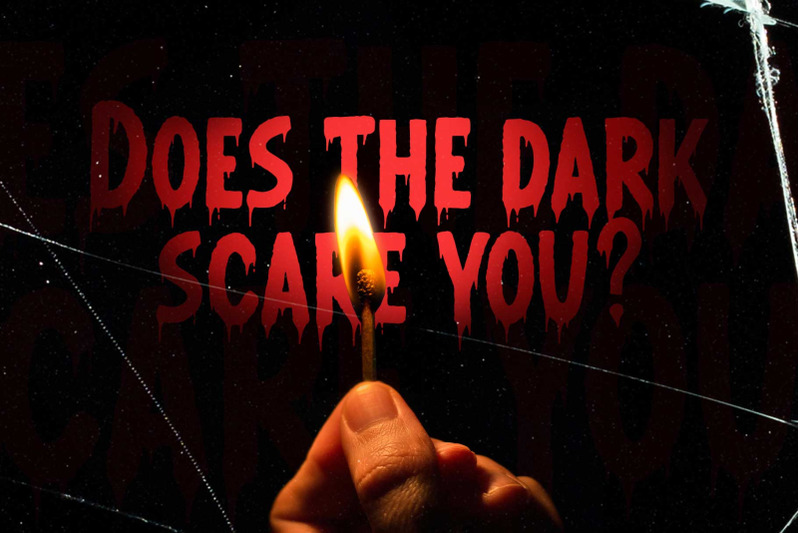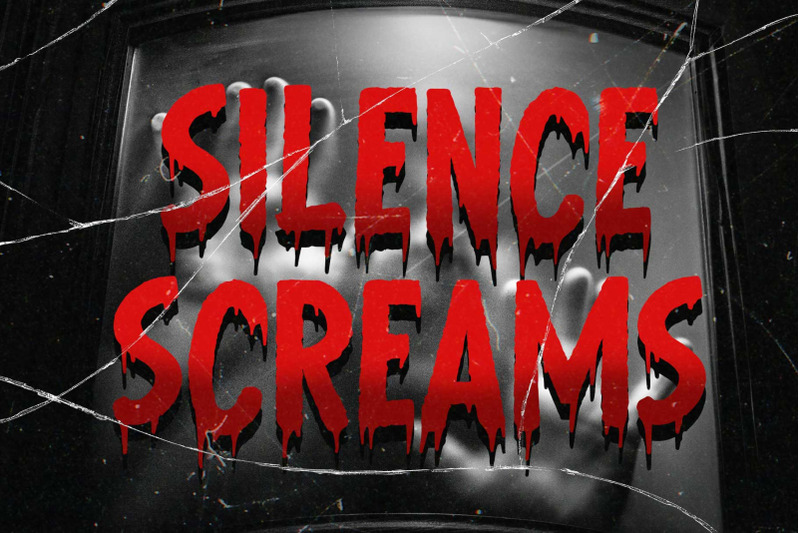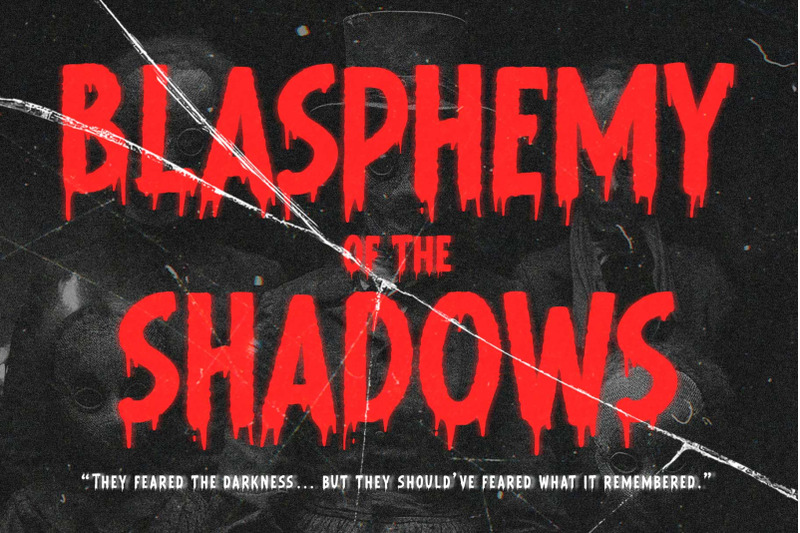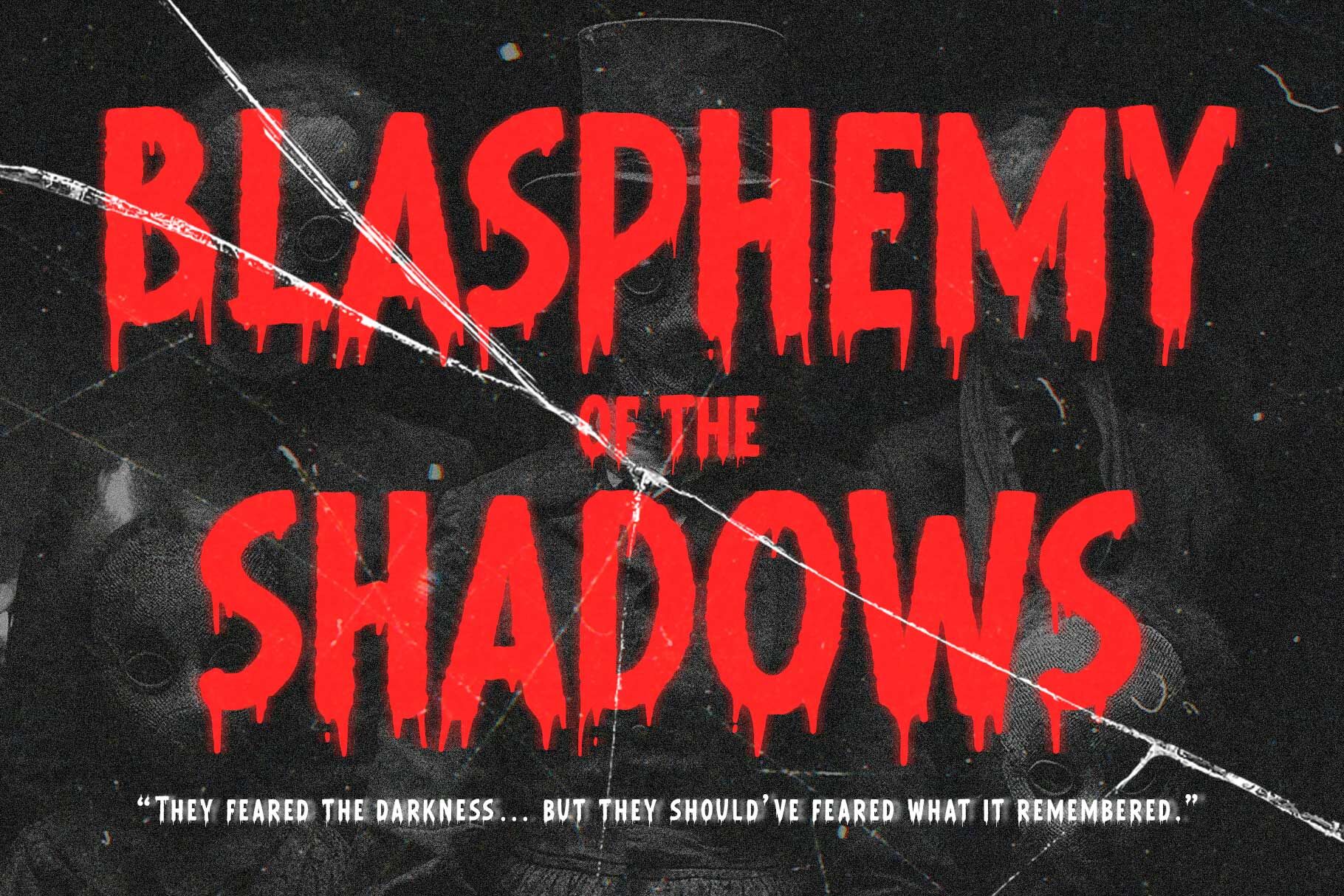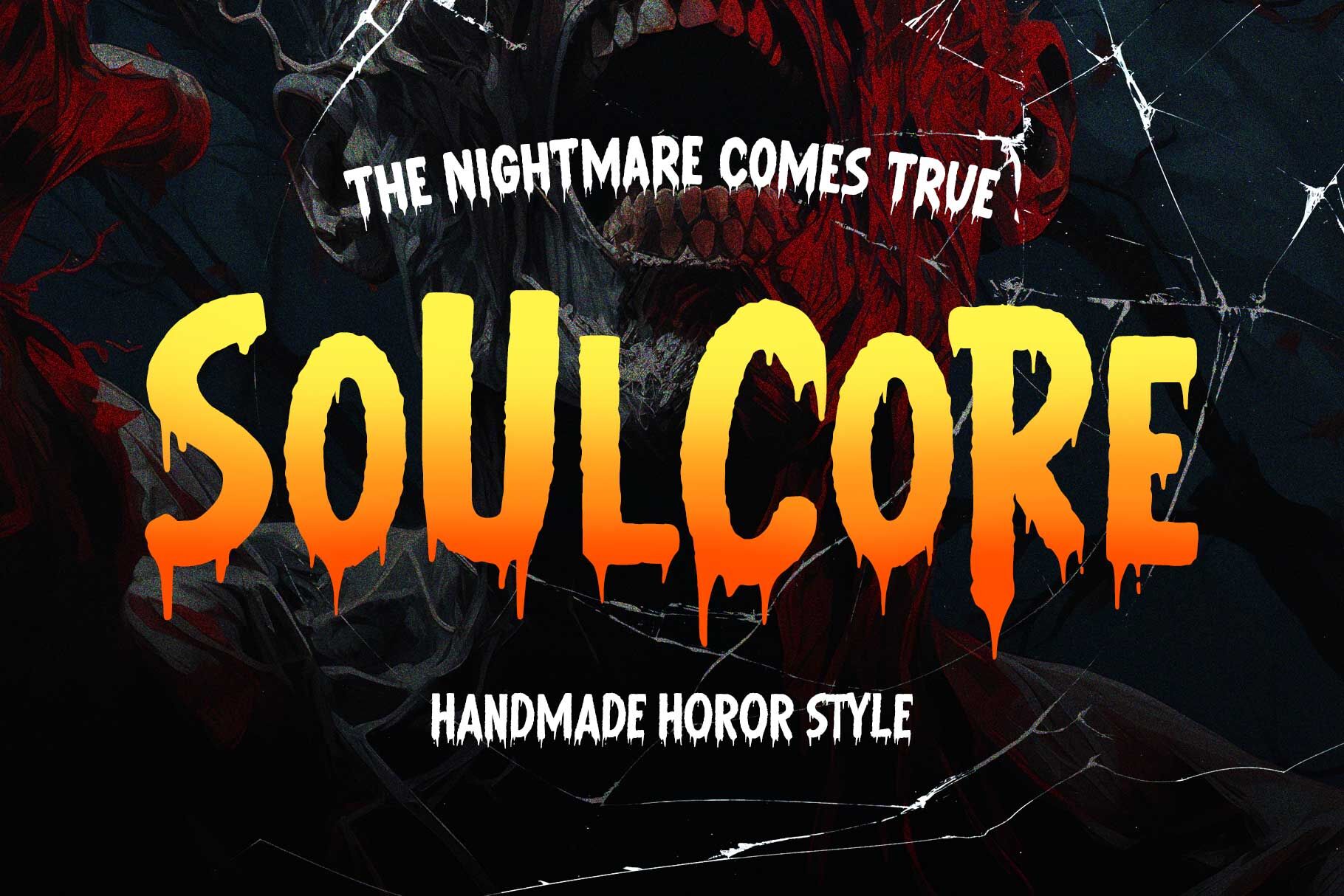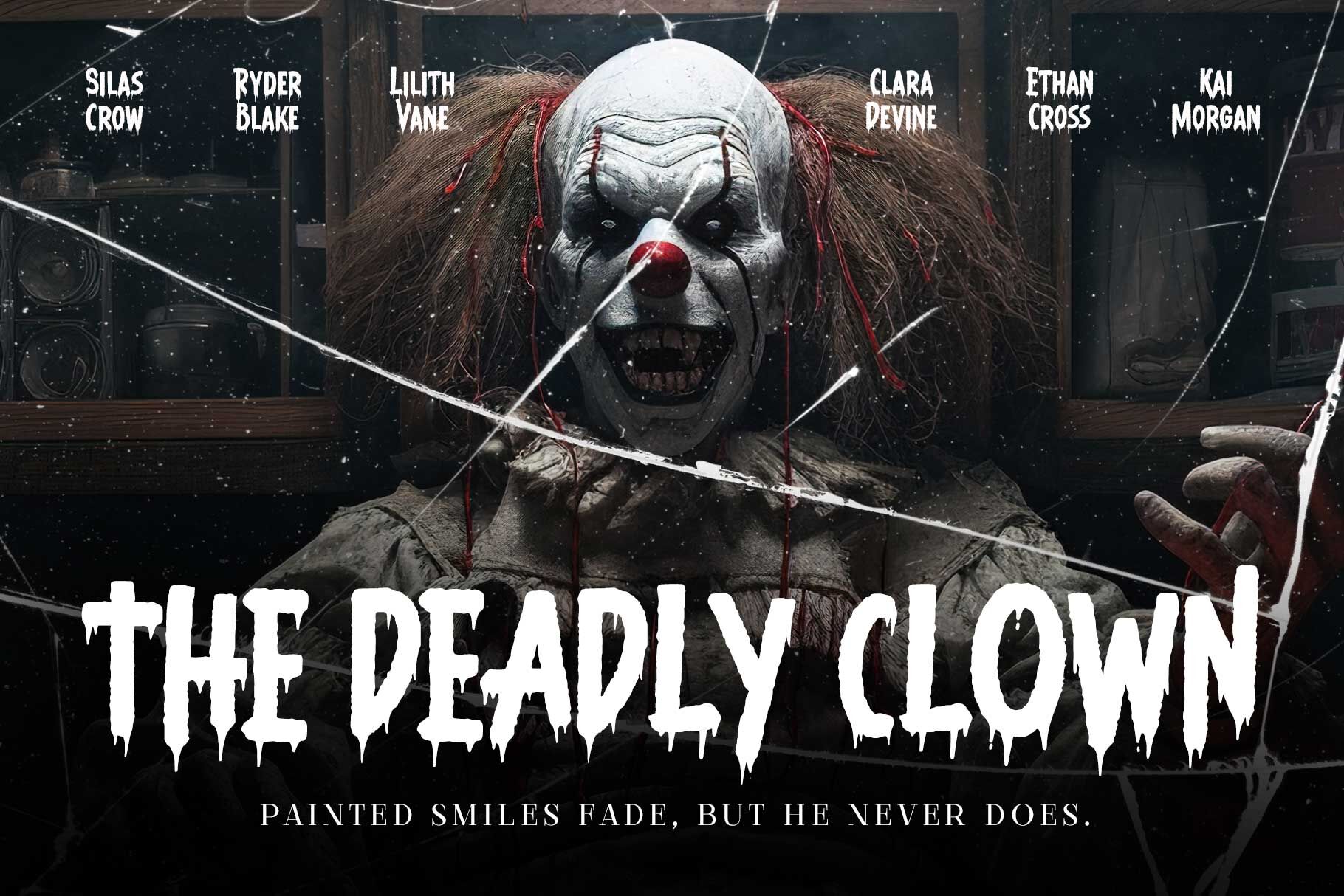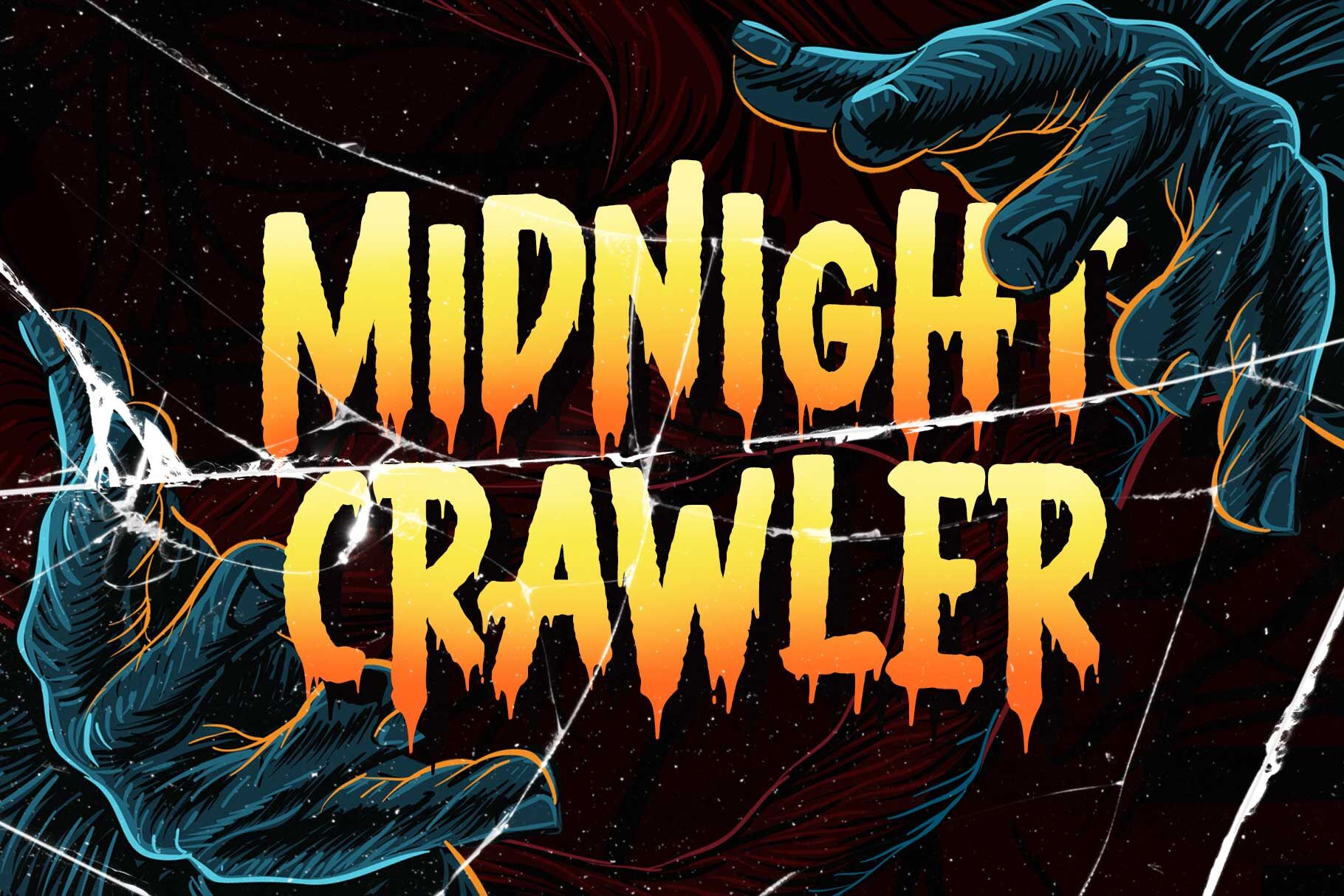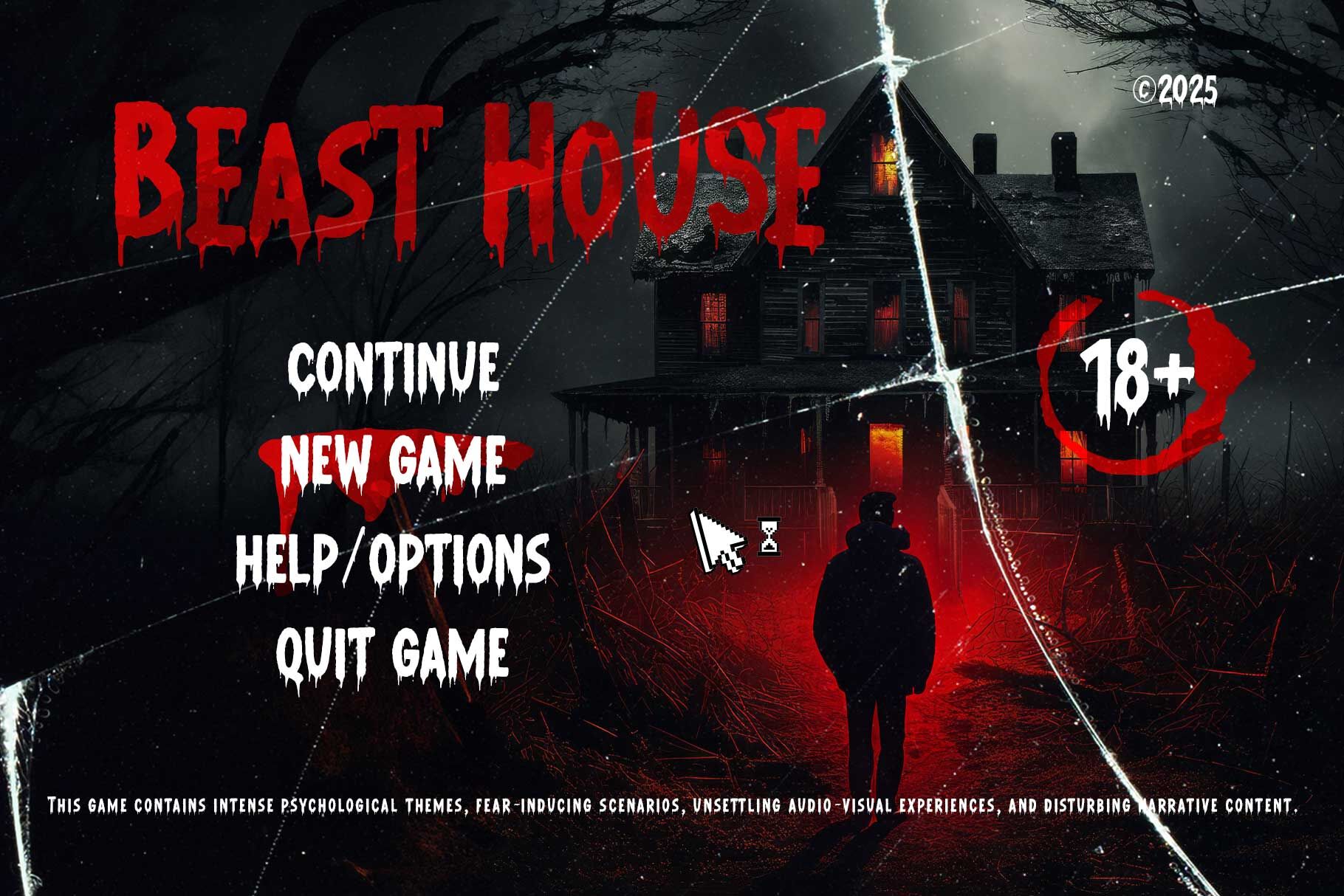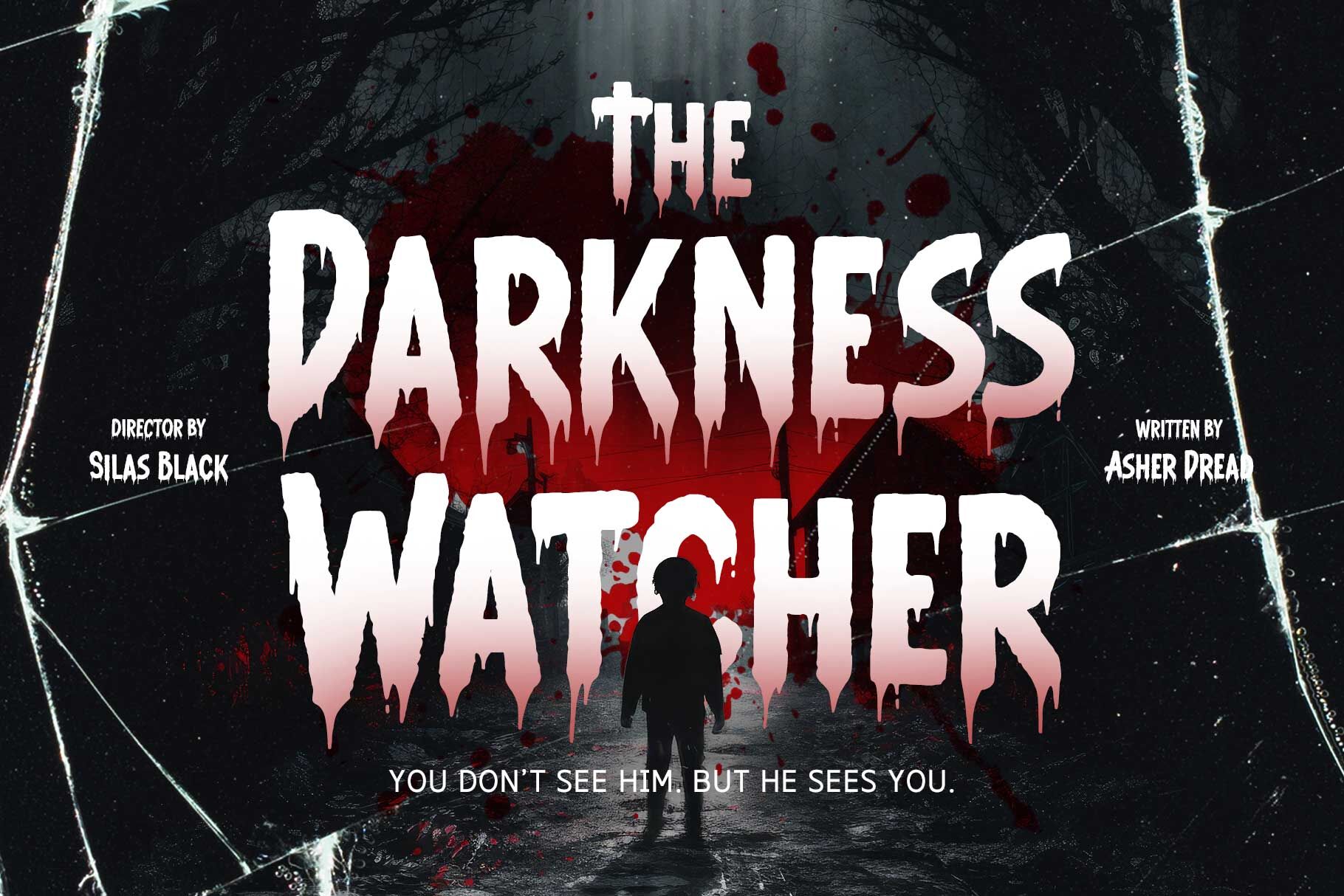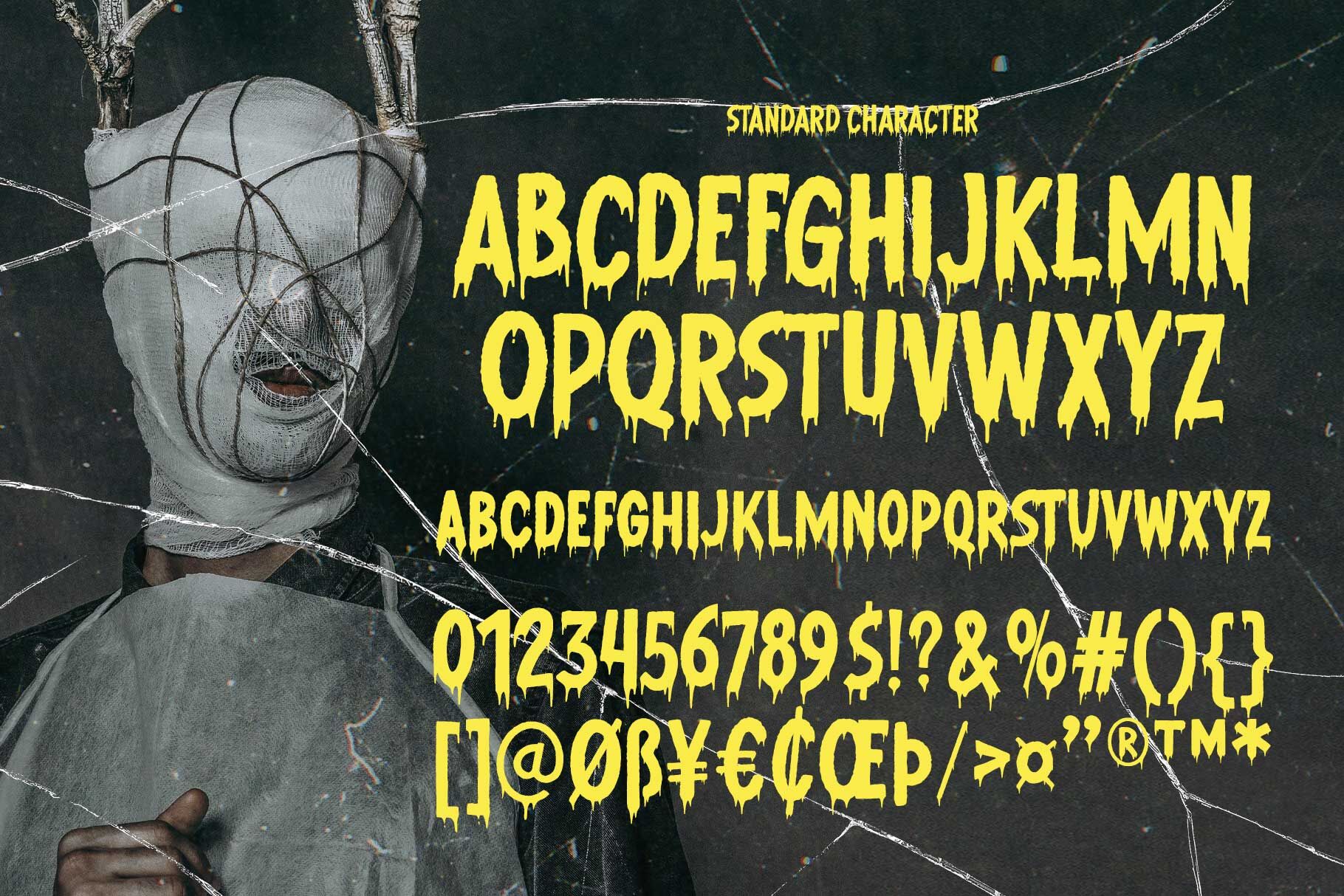
Soulcore Horror Display Font
Introducing Soulcore – A Terrifying Typeface for Fearless Designs Dare to design with Soulcore, a spine-chilling display font forged in the shadows of your darkest imagination. With jagged strokes, distorted forms, and raw intensity, this typeface is crafted to invoke unease, suspense, and a perfect dose of chaos. Whether you're designing a horror movie poster, book covers, posters, game, or haunted branding, Soulcore screams with personality. Each letter oozes with tension and blood, making it the perfect choice for those who dare to stand out. Fonts featured : TTF, OTF, WOFF format All-capital character set Smallcaps Numbers & symbols Punctuations Multilingual supports Stylistic alternates